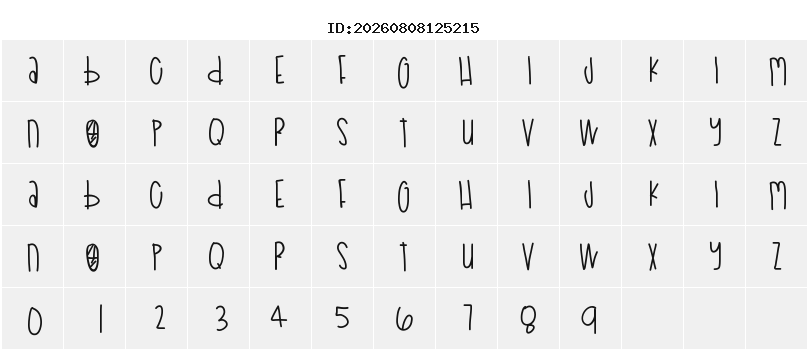
PoodleDoodles Preview
• Font Name: PoodleDoodles
• Full Font Name: PoodleDoodles
About PoodleDoodles.ttf
PoodleDoodles.ttf is a modern, elegant sans-serif font designed for ultimate readability and visual harmony. Perfect for branding, headlines, web design, and print materials.